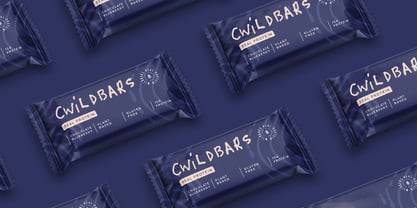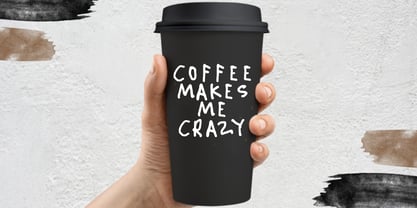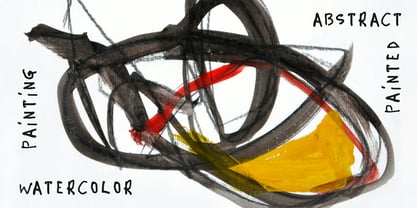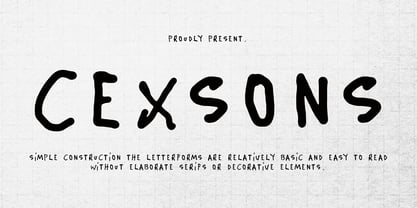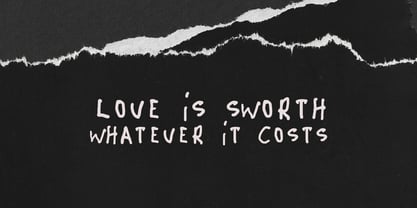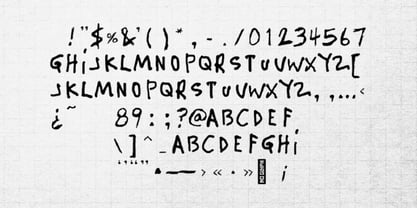
Cexsons
by Aqeela Studio
The Cexsons Font Family was designed by Muhammad Nasir and published by Aqeela Studio. Cexsons contains 1 styles. More about this family
Informal and Playful The letterforms have a relaxed and slightly irregular feel, suggesting they were drawn by hand rather than being precisely constructed.